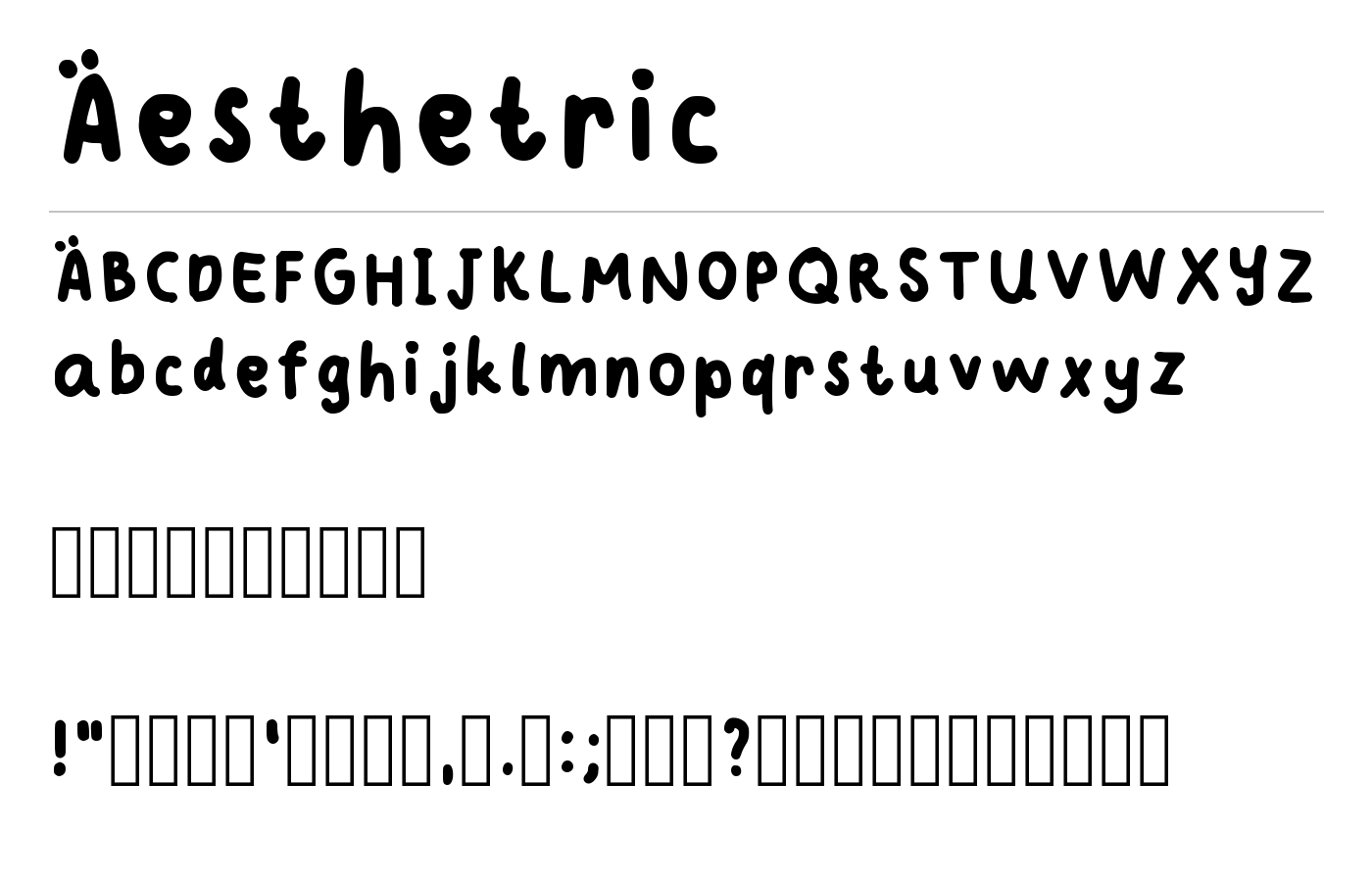
Aesthetric Font is a playful and friendly sans serif with rounded, irregular shapes that give it a hand-drawn, casual feel. Its bold weight and medium width, combined with a high x-height and simple letterforms, make it highly legible and approachable, perfect for informal designs, children's content, and creative branding that seeks warmth and personality. This font works well for logos, posters, and social media graphics where a fun and inviting tone is desired.
Aesthetric Font
About Aesthetric Font